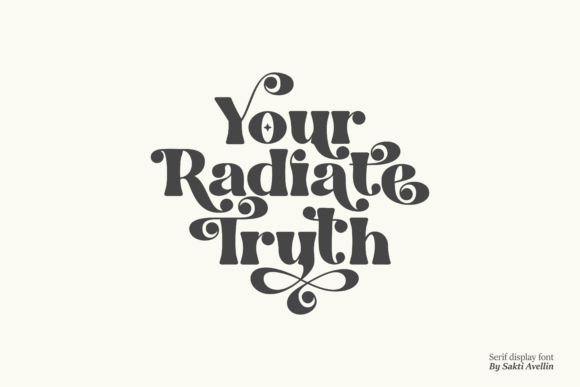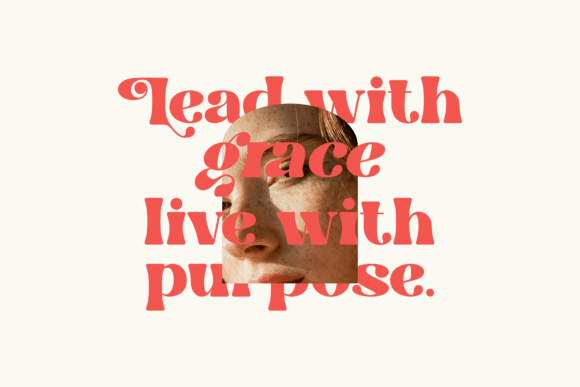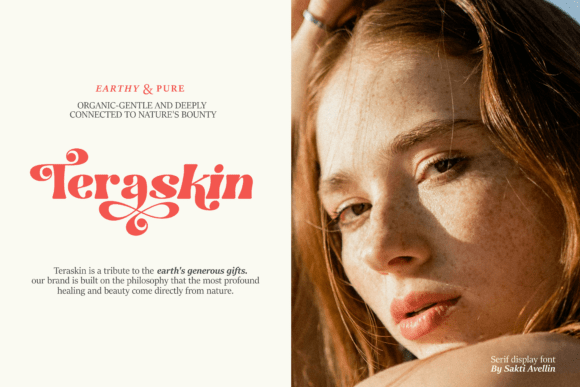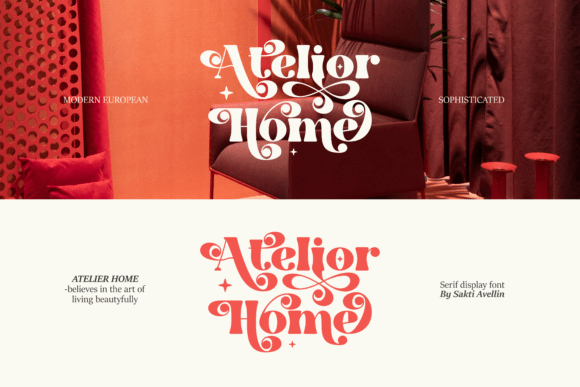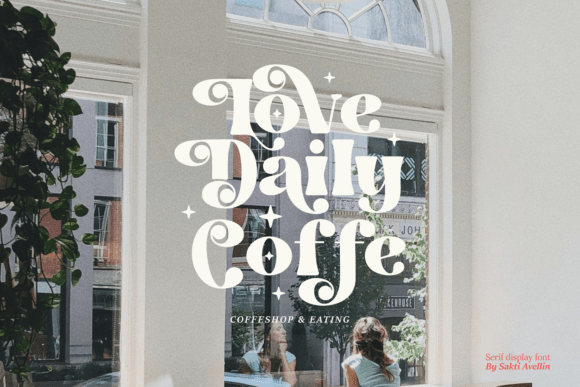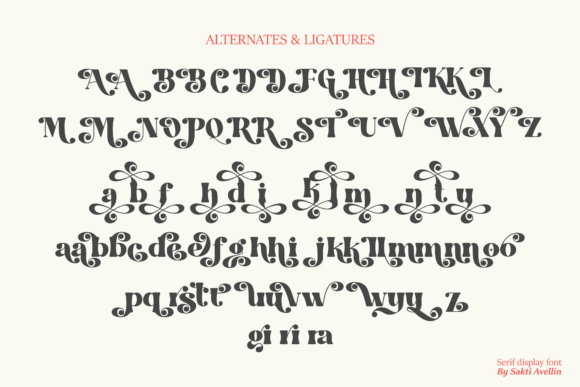
Shining Bright with Creativity
Have you ever stared at a blank canvas, trying to bring your idea to life, only to find the perfect words slipping away from you? The struggle is real, but the solution might be simpler than you think. Sometimes, all it takes is the right font to set the tone and make your design sparkle.
Enter the Bright Stars Font, a charming serif display font that’s about to become your new go-to companion. This delightful font is designed to add a playful and elegant touch to your designs, making it perfect for anything from branding and logos to social media and digital content. With its rich set of alternate characters and ligatures, you’ll have endless options to create unique variations and personal touches that make your designs truly shine.
As a designer, you know how much a well-chosen font can elevate your work. The Bright Stars Font is no exception – its versatility and charm make it an invaluable addition to your design toolkit.
Bright Stars Font Key Features
- Unique Characteristics: Bright Stars Font features a unique blend of modern and celestial elements, with intricate star patterns and elegant lines, making it perfect for creating a sense of wonder and magic.
- Font Style: The font has a clean and legible design, with a x-height of 55% and a stroke width of 2.5pt, making it easy to read even at small sizes.
- Font Weight: The font has 2 weights: Regular and Bold, allowing designers to create a range of visual effects and emphasis in their designs.
- Kerning and Ligatures: Bright Stars Font features advanced kerning and ligature pairs, ensuring that text flows smoothly and professionally, even at small sizes.
Bright Stars Font Review
Overall, I was quite excited to try out the Bright Stars Font, and for good reason – it’s ✨ visually stunning! The font has a unique, hand-drawn feel that immediately grabs attention. The designer has done a great job of creating a cohesive look that’s both modern and whimsical. The font is perfect for anyone looking to add a touch of magic to their designs.
One of the standout features of the Bright Stars Font is its ✨ versatility. It’s suitable for a wide range of applications, from branding and marketing materials to digital products and packaging. The font is also highly customizable, with multiple weights and styles to choose from.
- Unique, hand-drawn design
- Visually stunning and attention-grabbing
- Suitable for a wide range of applications
- May be too ornate for some designs
- Not ideal for body text, as it can be difficult to read
- May require additional styling to ensure legibility
- Not suitable for large blocks of text
- ⚠️ Limited support for certain languages
Overall, I would highly recommend the Bright Stars Font for anyone looking to add a touch of magic to their designs. However, it’s essential to keep in mind its limitations and use it judiciously.
Bright Stars Font Practical Application Guide
For a more dramatic effect, use the Bright Stars Font as a heading or title, and pair it with a clean and simple font for body text.
For a more creative effect, use the Bright Stars Font in conjunction with other design elements, such as shapes and graphics, to create a visually appealing design.
For a more professional look, use the Bright Stars Font consistently throughout your presentation or document to create a cohesive design.
Use the Bright Stars Font for creative projects, such as wedding invitations, party decorations, and social media graphics.